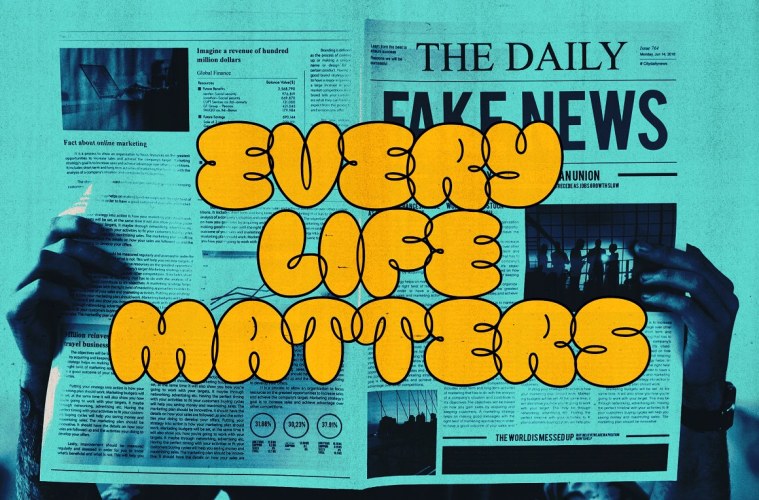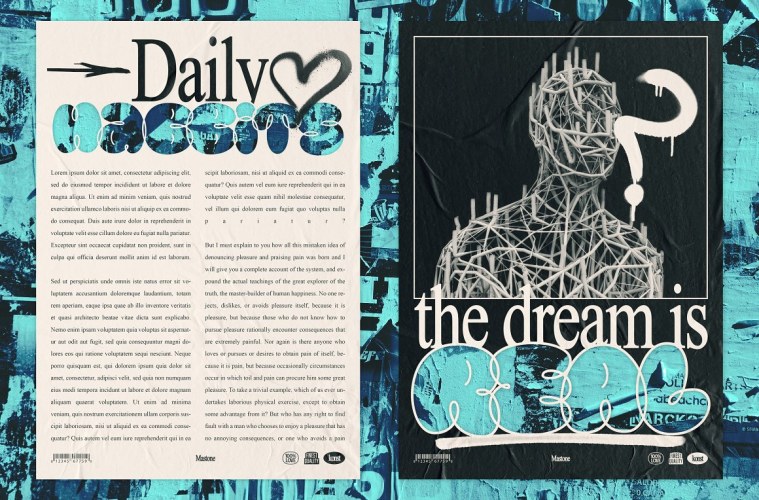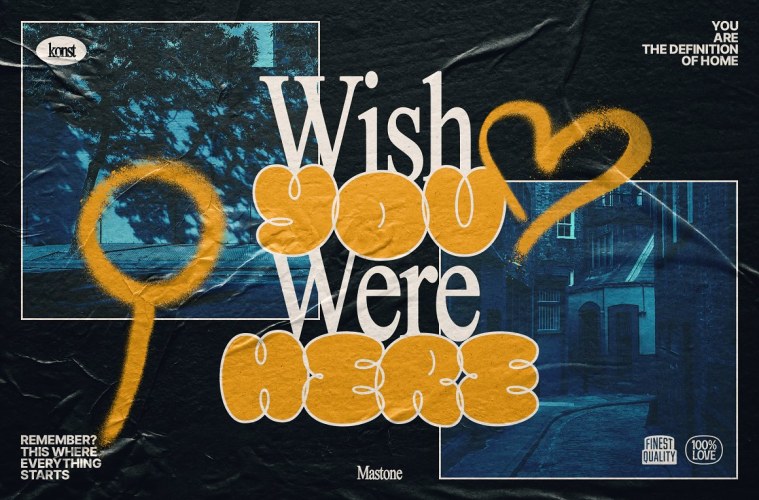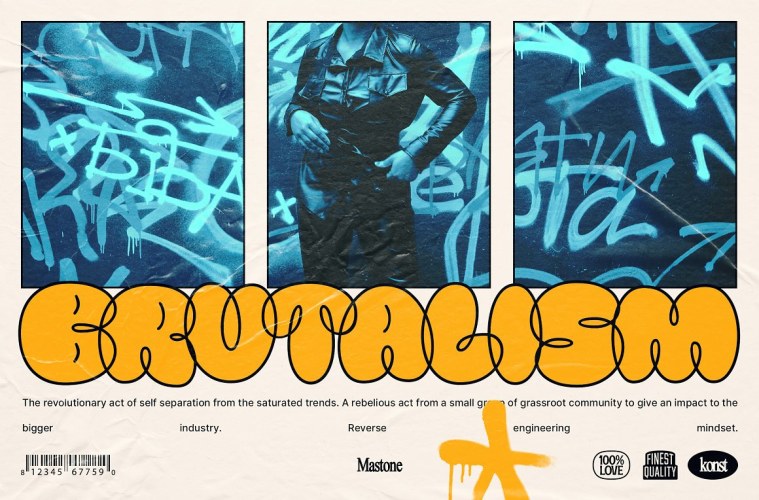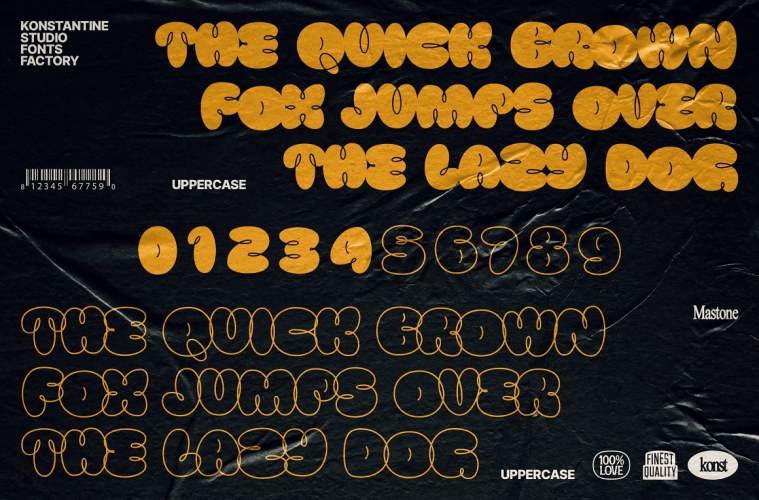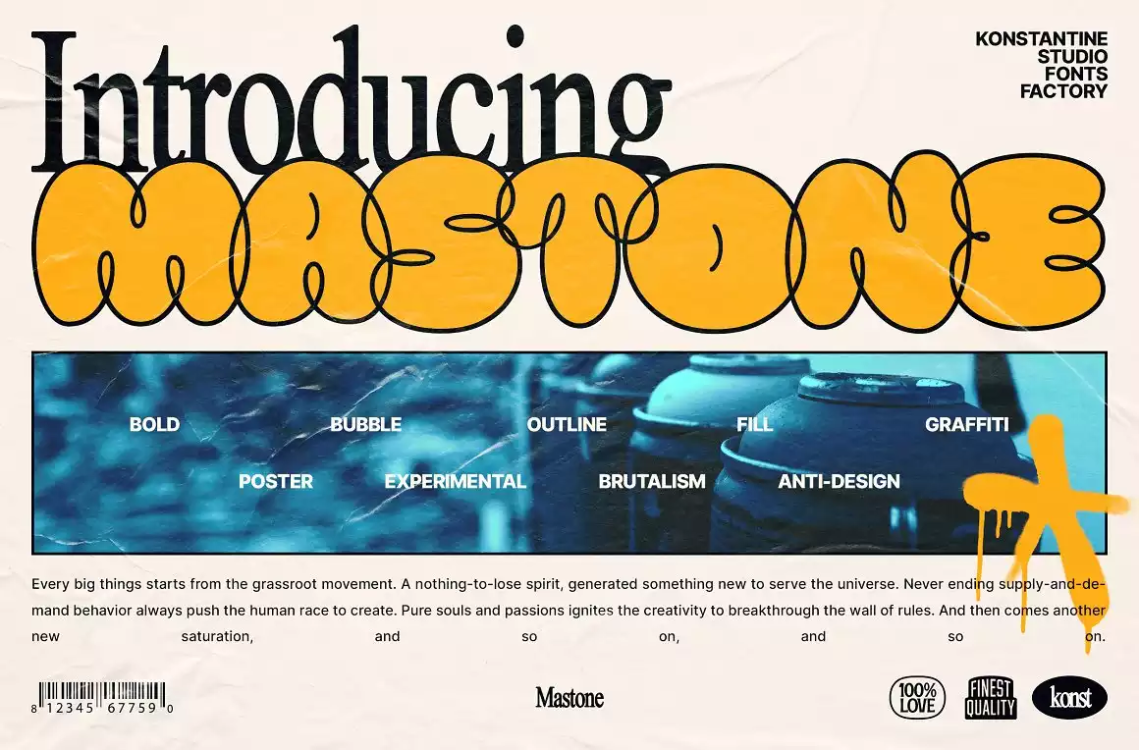
Mastone Font
Mastone embodies an energetic typeface that draws from the developing bubble typography movement revolutionising graphic design. This typeface combines elements of 2000s style and urban fashion along with a rough yet creative mix of bubble graffiti elements. The outcome is an individual and flexible font that reflects past and present.
Mastone symbolises the exciting and vibrant features of the early 2000s style. A rough and uncultivated vibe arises from the brutalist components that makes it distinctive in all creative tasks.
Mastone Font is a Display Fonts font that brings a professional and versatile look to your projects. Mastone embodies an energetic typeface that draws from the developing bubble typography movement revolutionising graphic design.